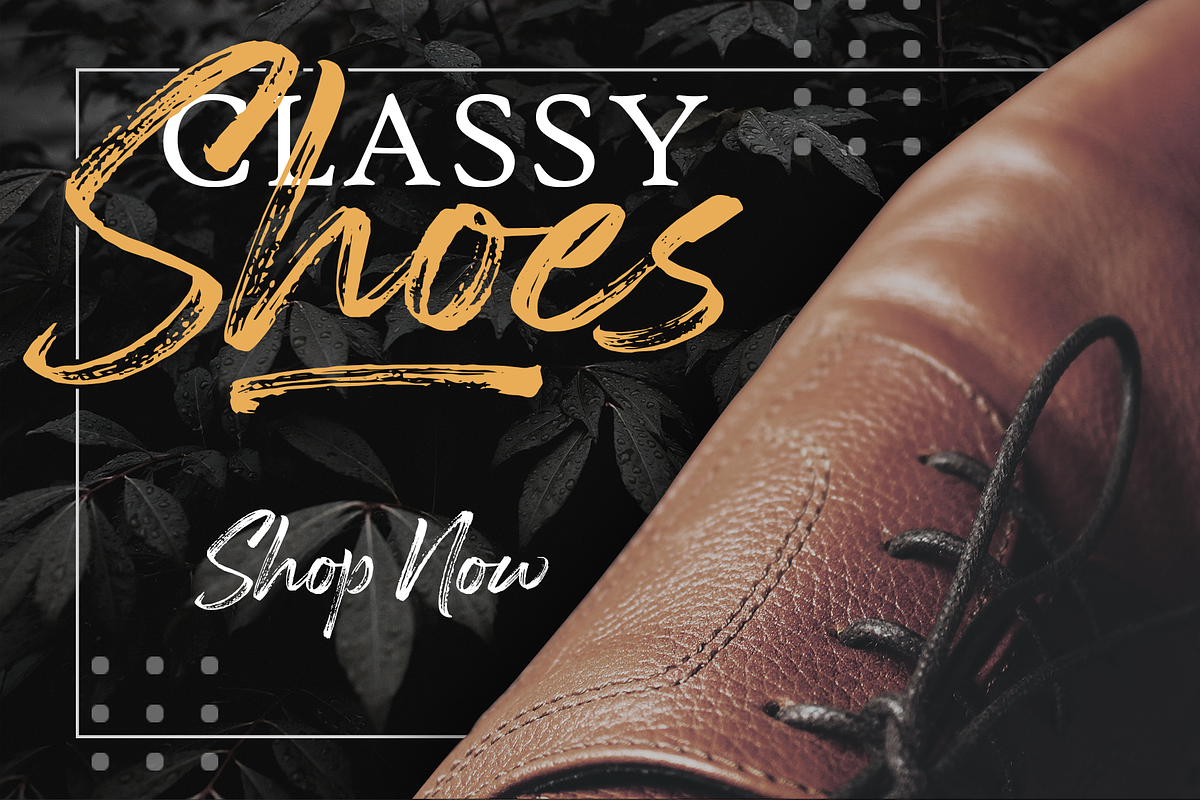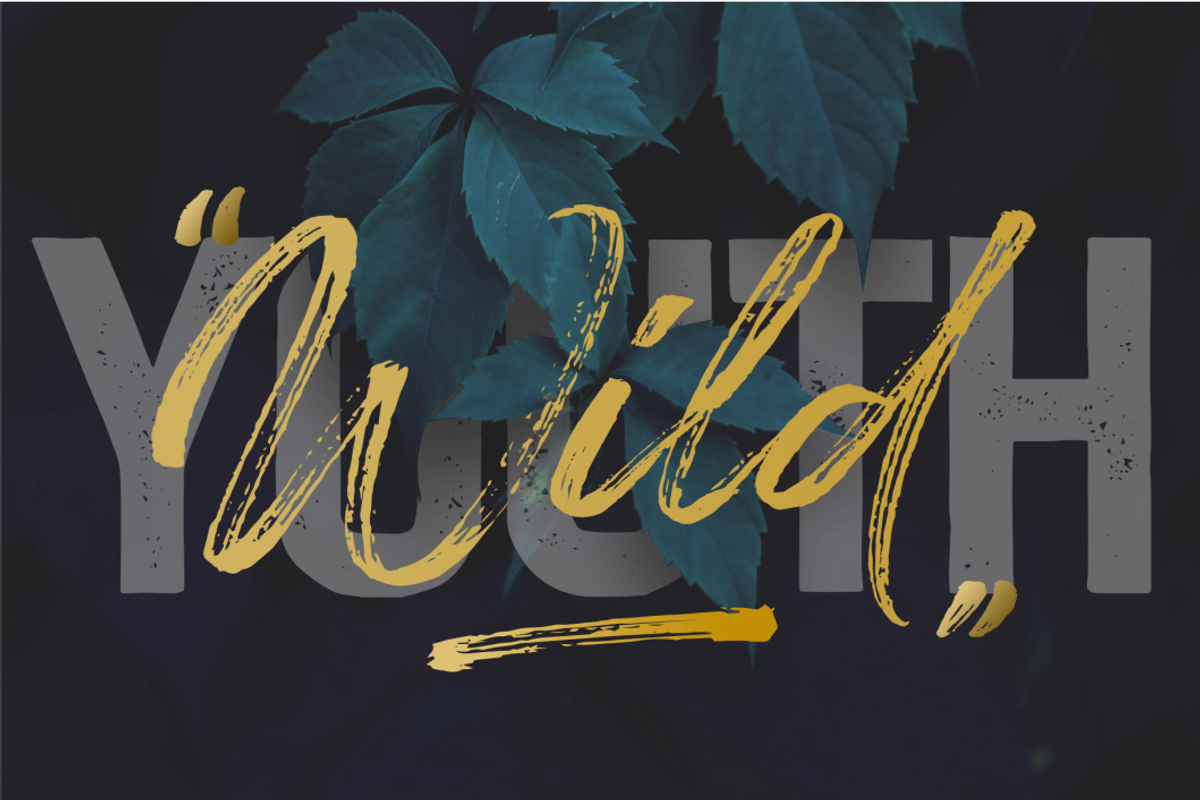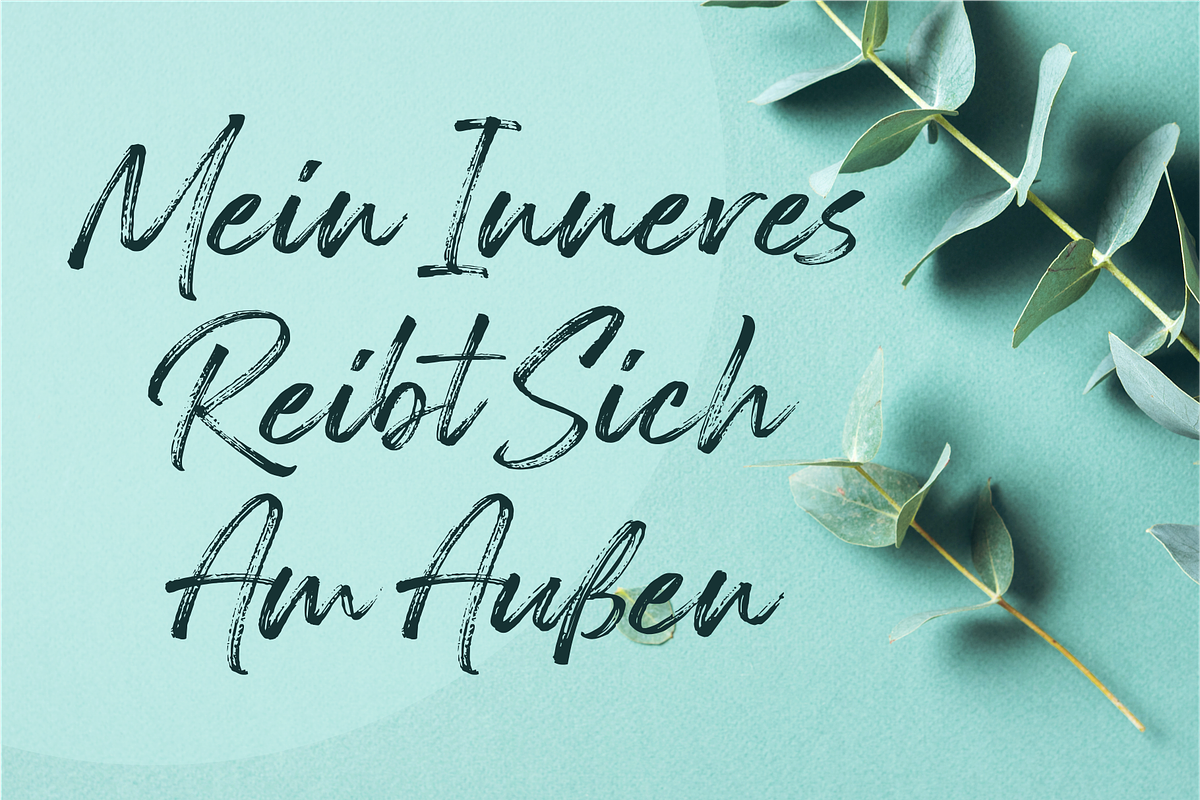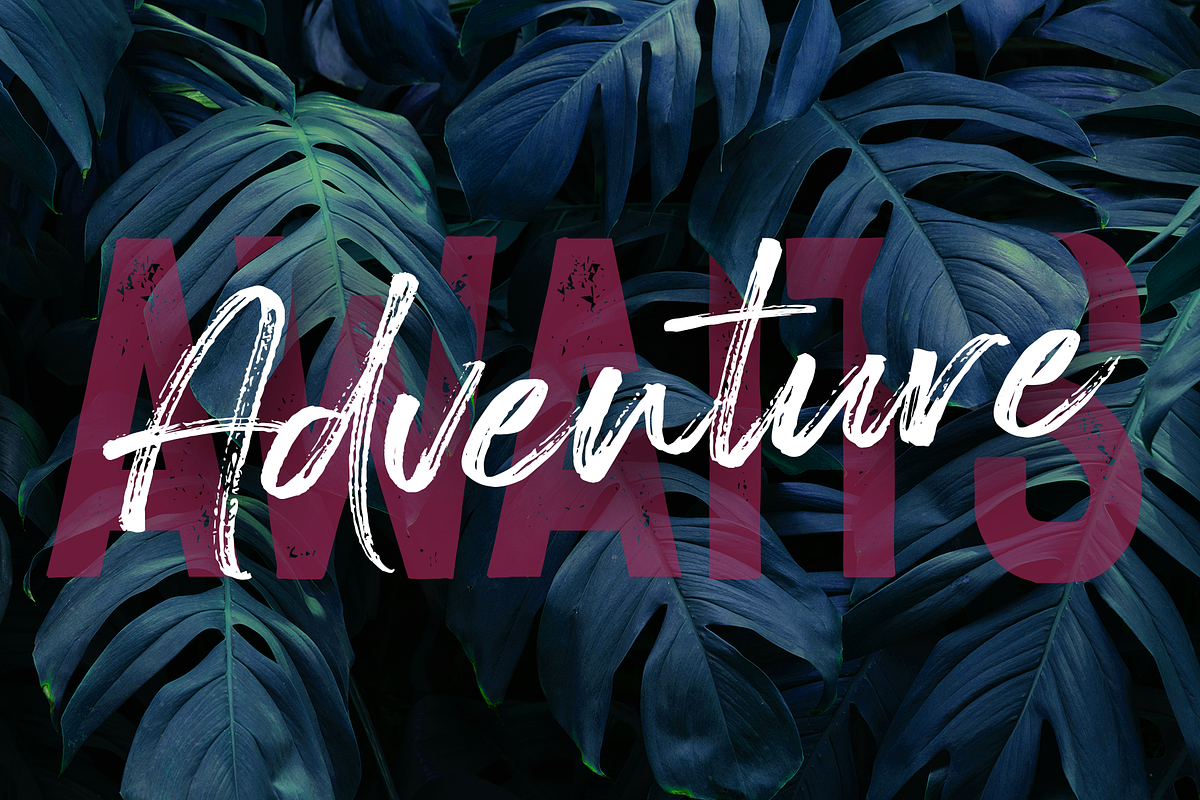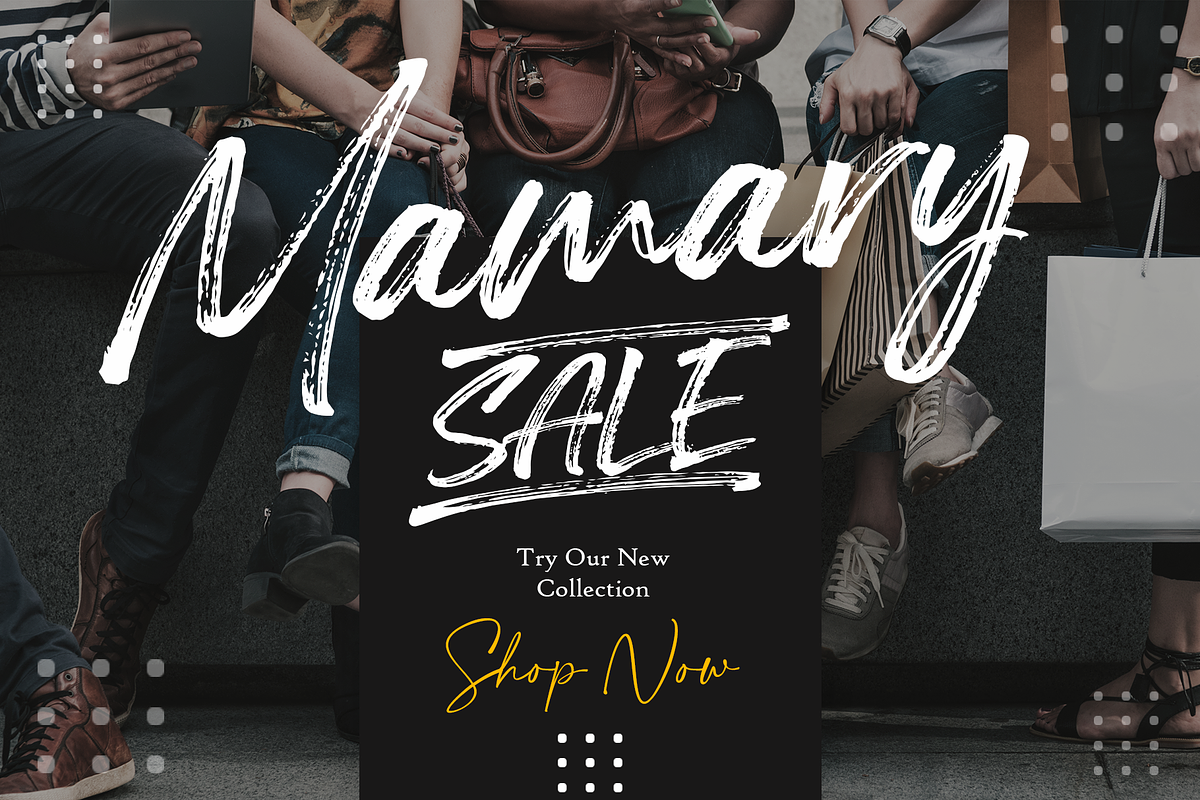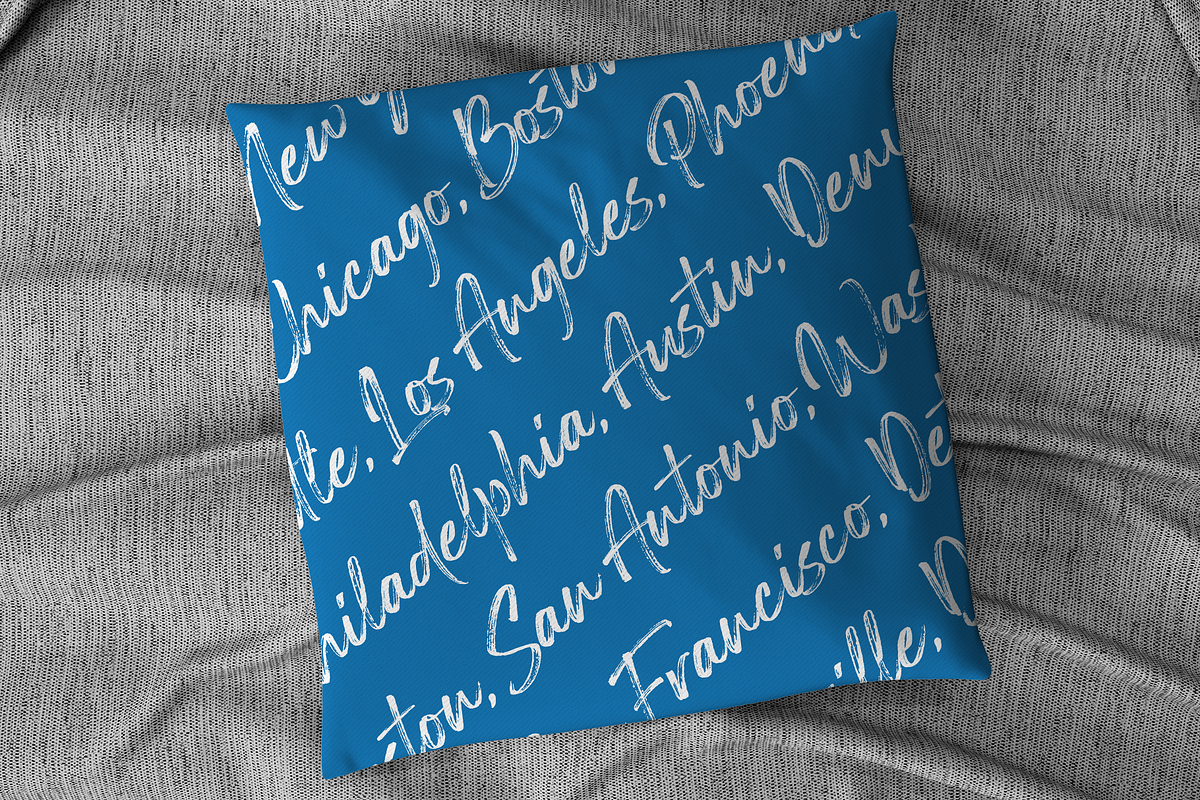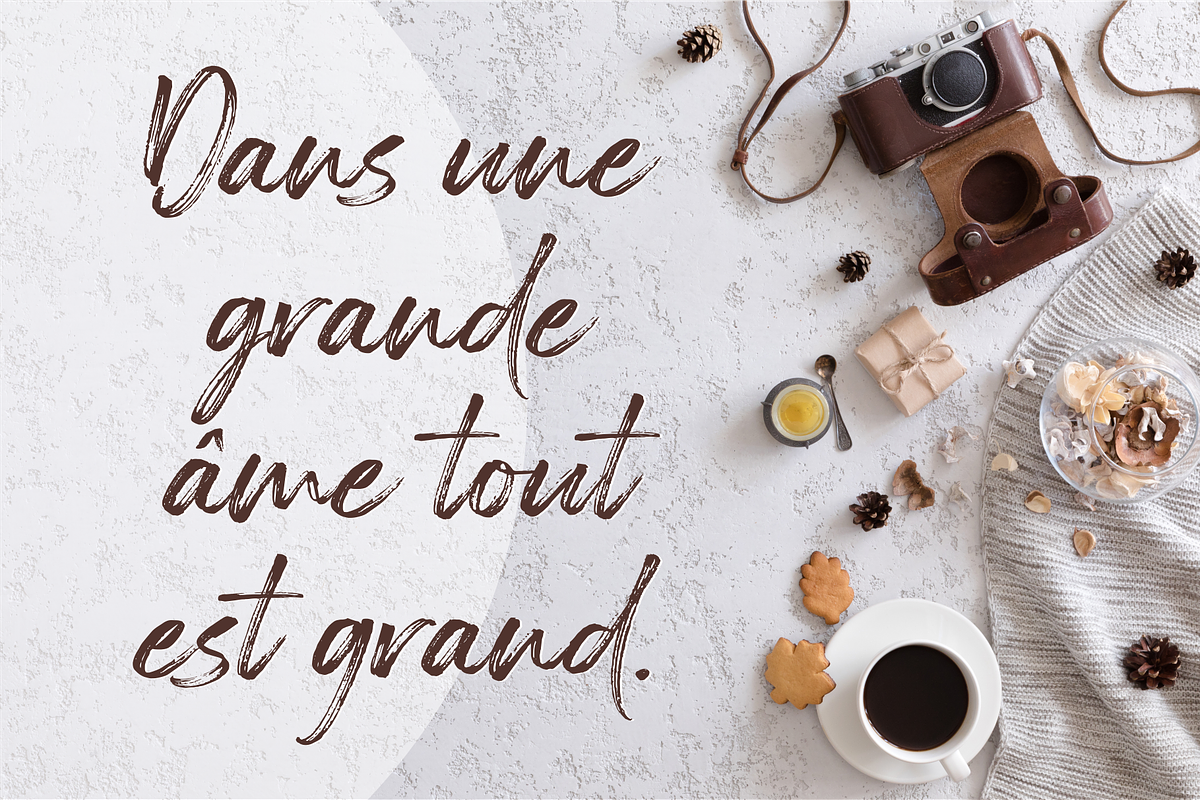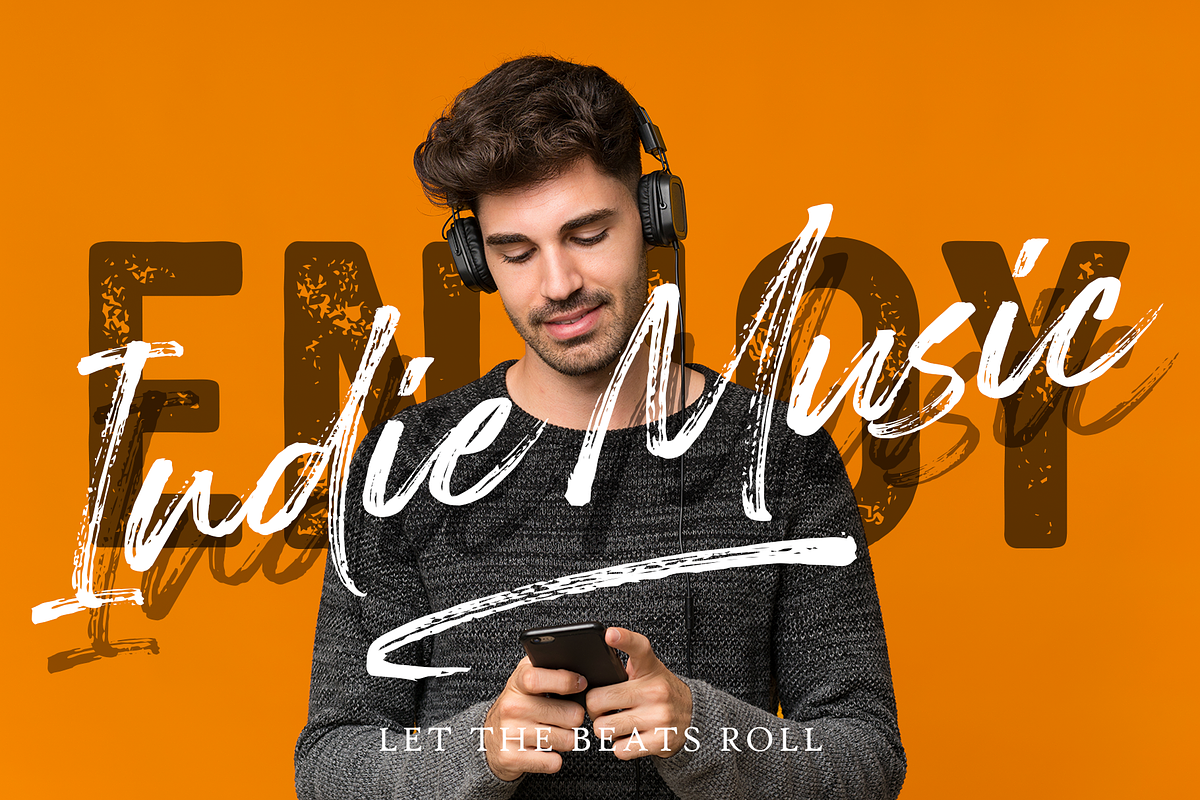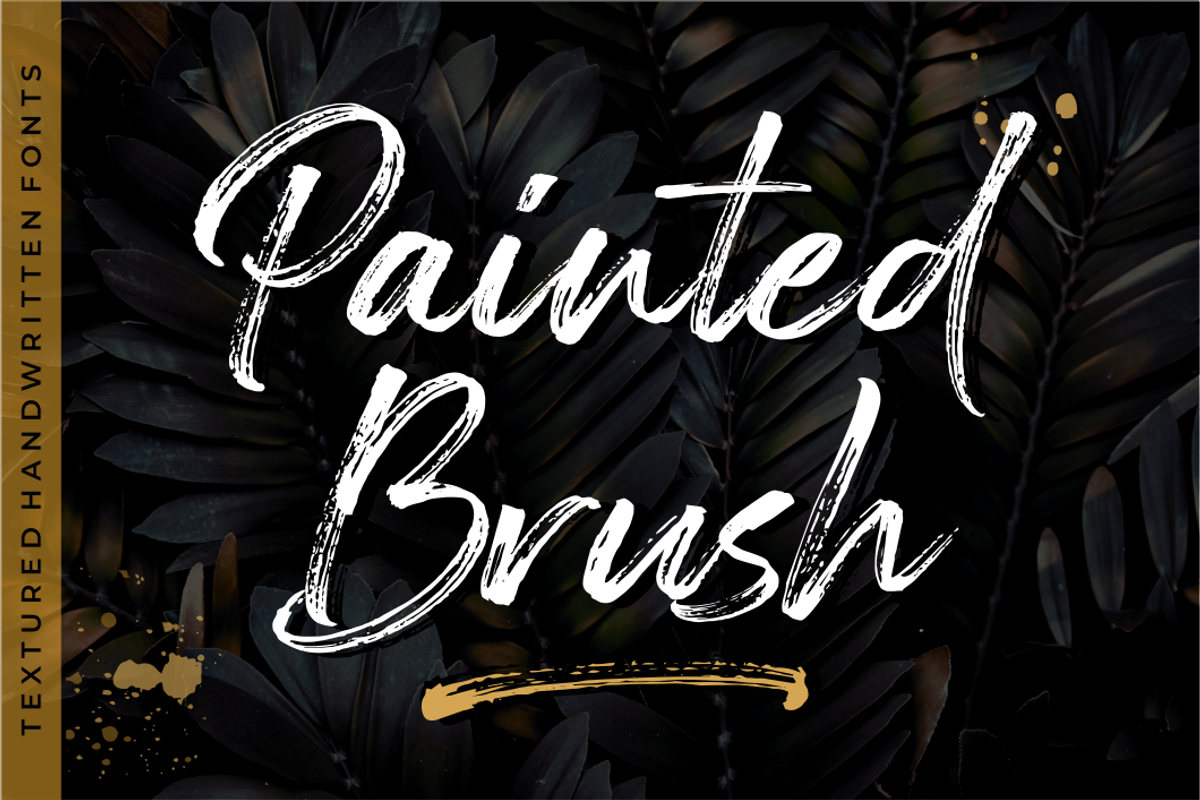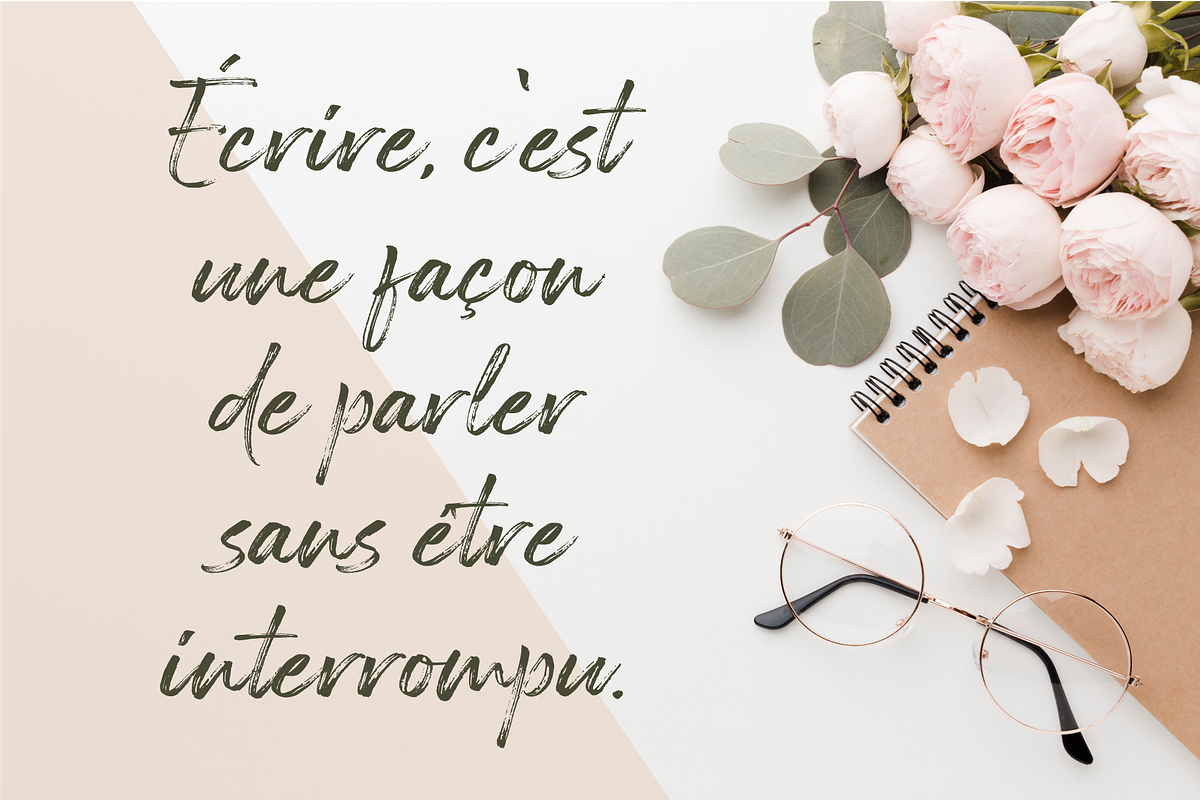
Painted Brush Fonts + Update
Painted Brush Fonts is a strong handwritten brush script with bold and casual style. This handmade fonts comes with great legibility and readability.
Each stroke is carefully drawn to display great flow and harmony with a natural look. You can try many variations by accessing opentype features.
Painted Brush Fonts are suitable for branding projects, clothing companies, advertising, product packaging and a variety of your creative projects.